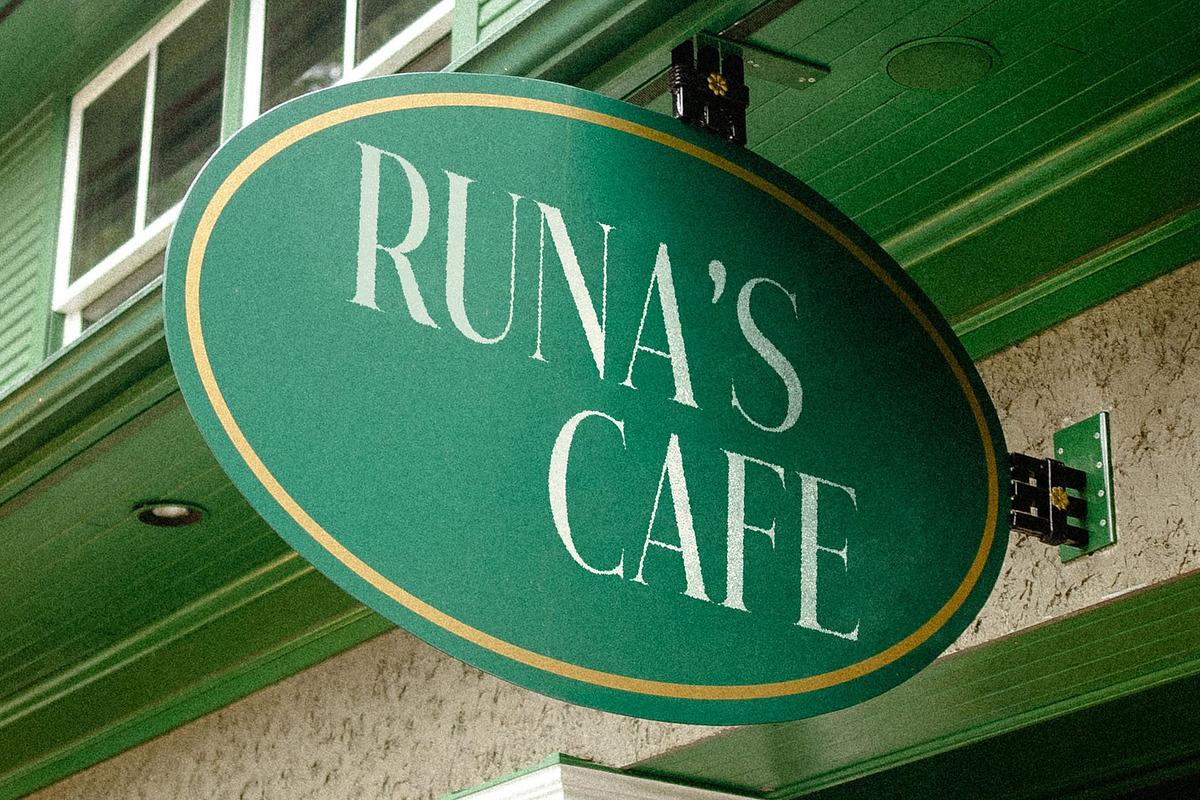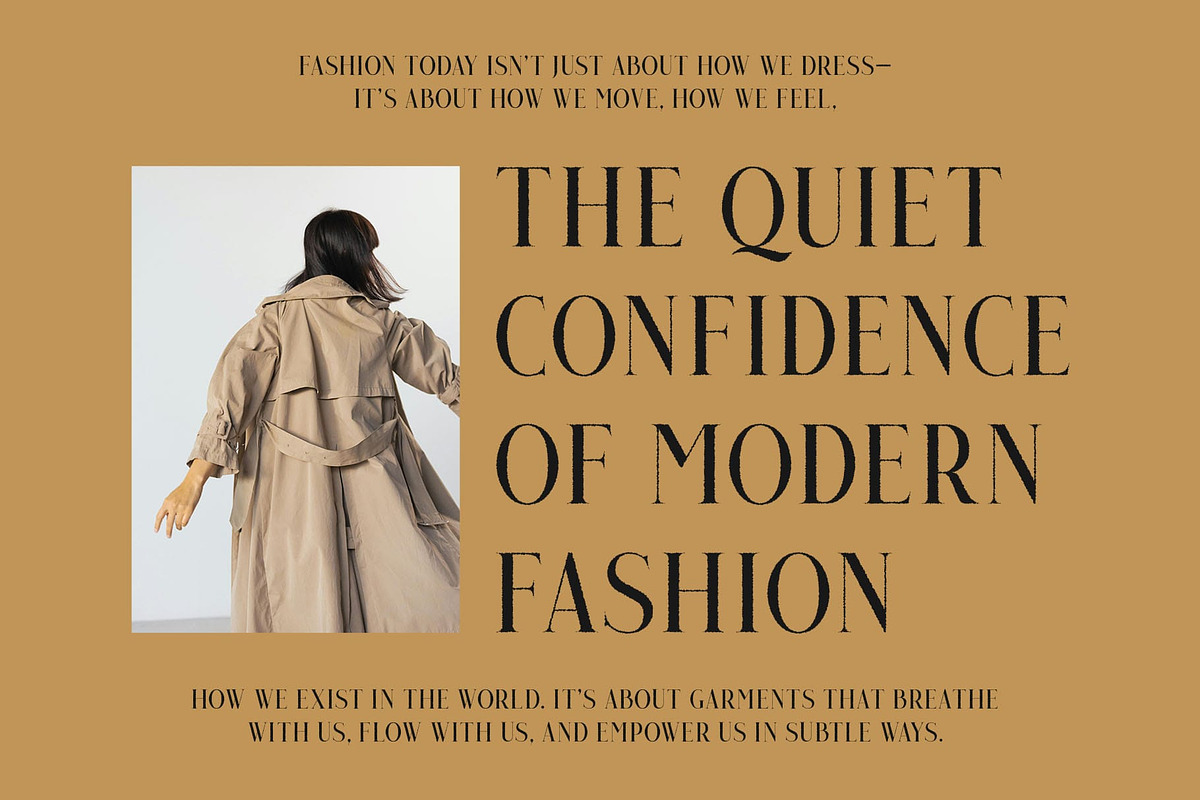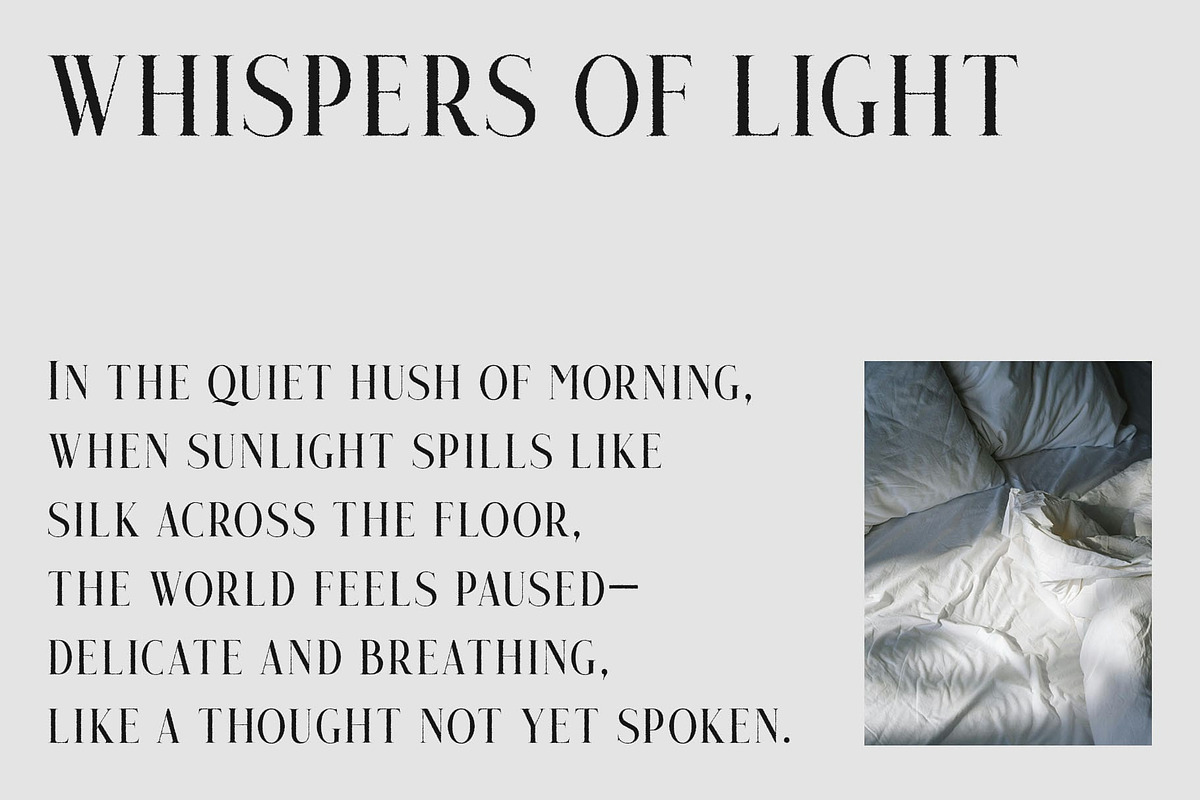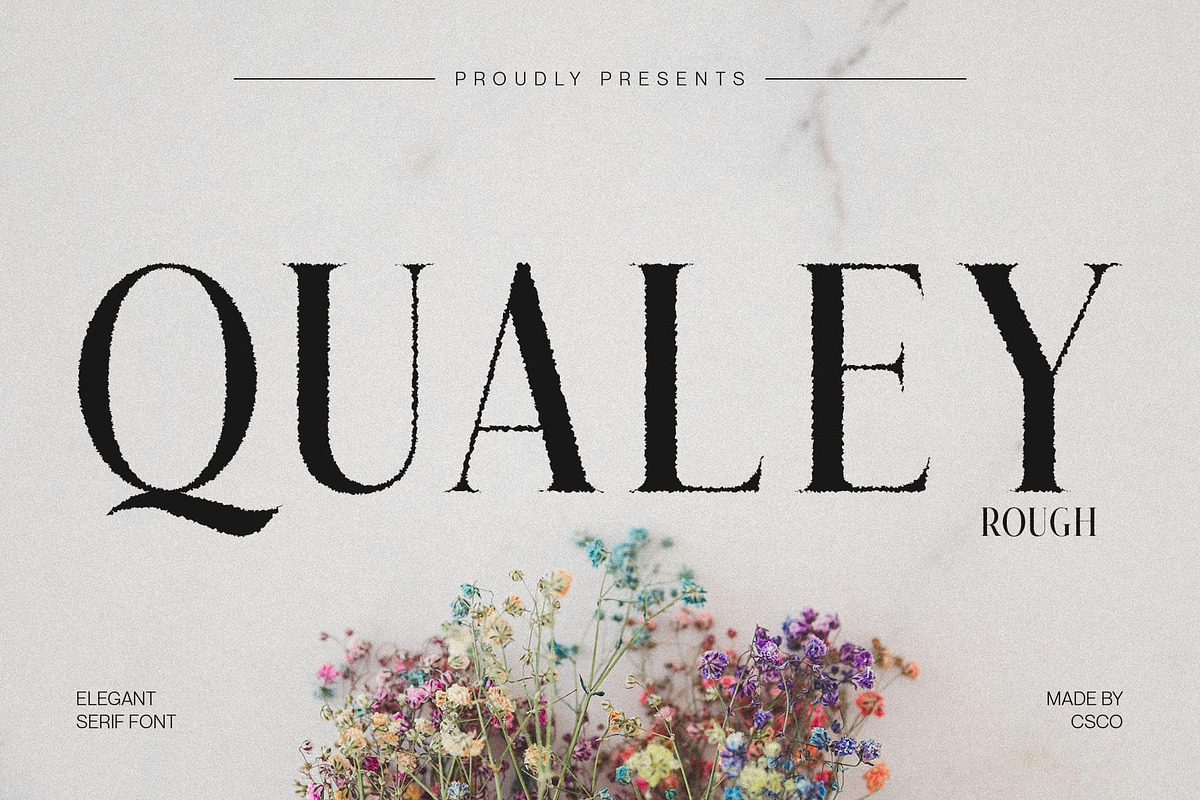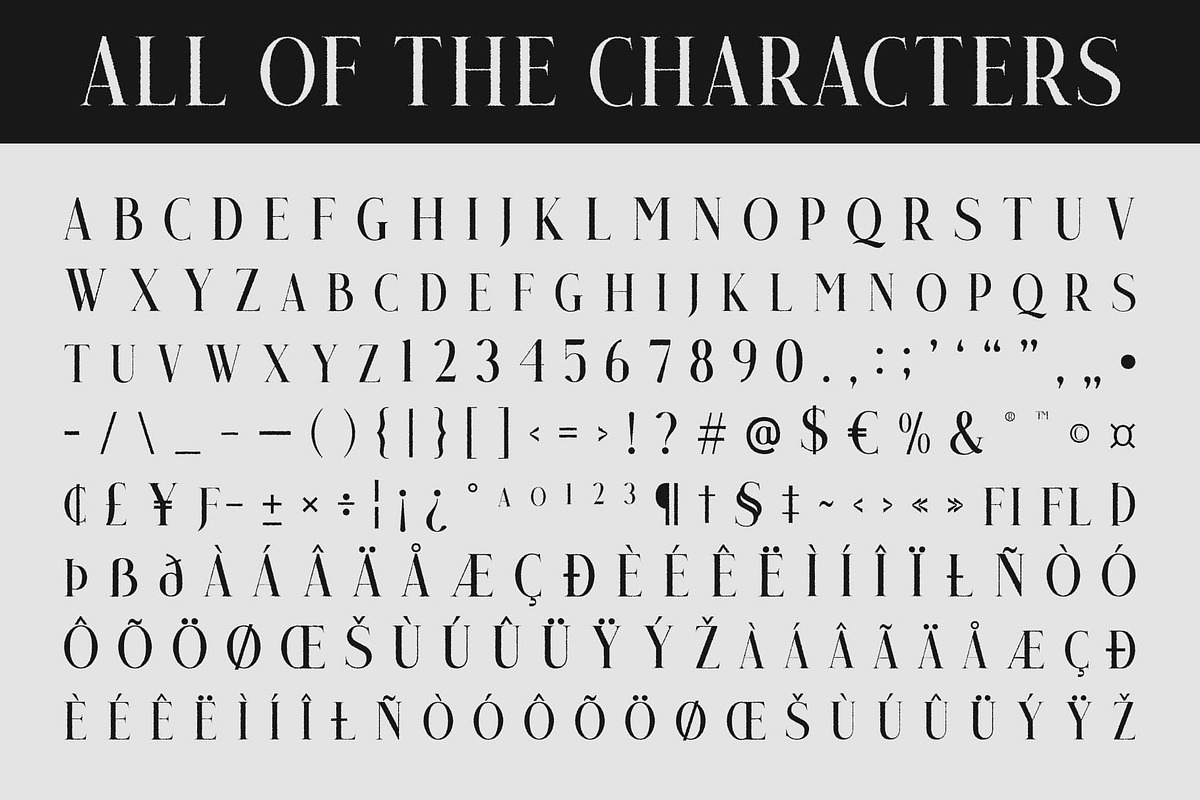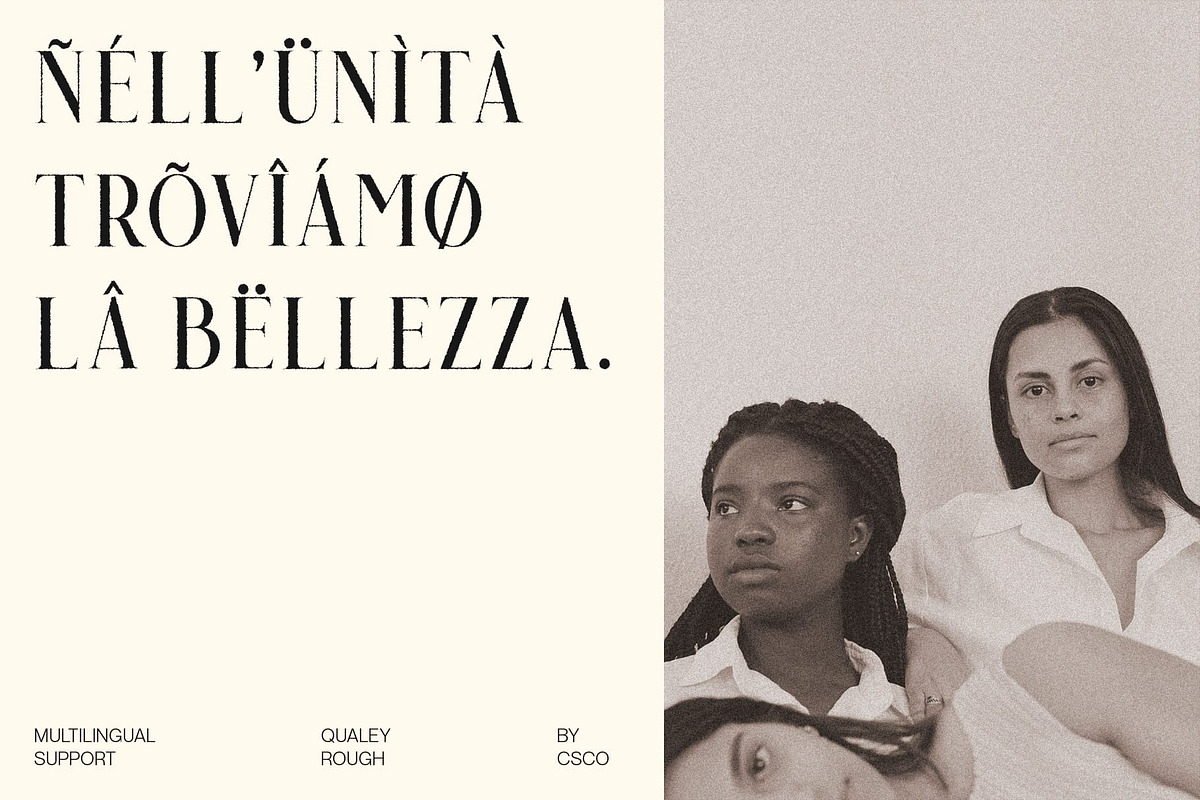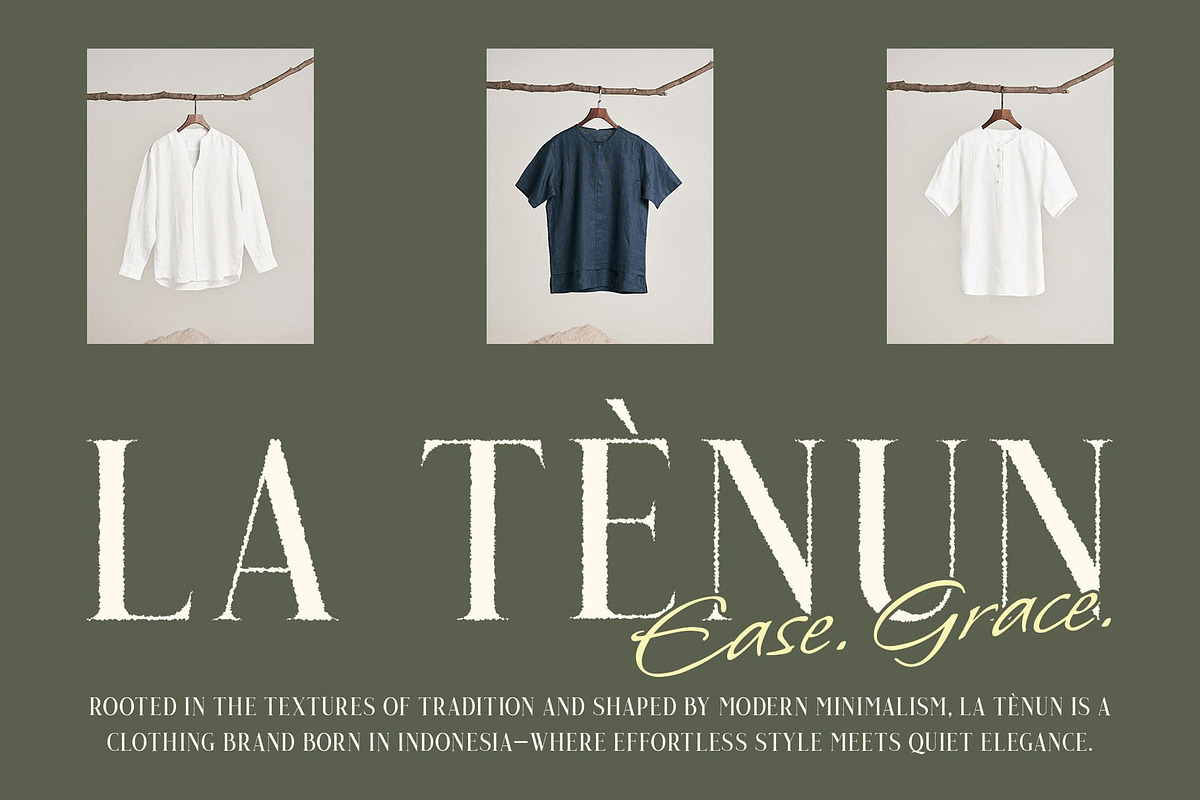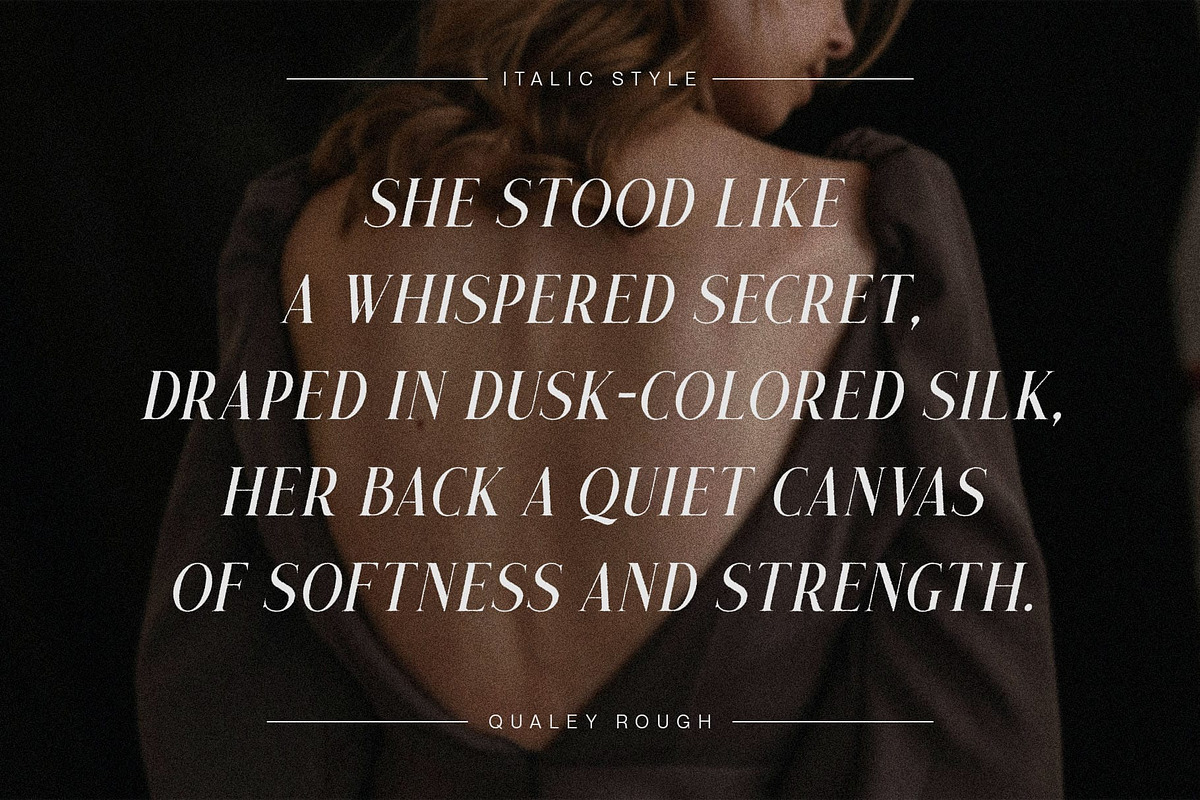
Qualey Rough
Qualey Rough – A Modern Serif Font with Organic Texture and Elegant Character
Refined Elegance Meets Handcrafted Texture Qualey Rough is a modern serif font that skillfully combines classic sophistication with a distinct rough texture, creating a typeface that feels both polished and organic. Its slender, high-contrast letterforms and sharp yet graceful serifs evoke a timeless sense of style.
Perfectly Imperfect for Creative Sophistication This font is designed to embody the best of both worlds—clean, minimalist shapes that offer clarity and elegance, enriched by intentional imperfections that make each letter feel alive and expressive. The rough effect isn’t just visual; it tells a story of craft, creativity, and a love for detail.
Versatile and Expressive for Premium Design Qualey Rough is ideal for luxury branding, editorial layouts, artistic packaging, wedding invitations, fashion lookbooks, and any project that calls for a stylish, elevated, and tactile typographic tone. Its visual texture gives your design a human touch, while the classic serif structure maintains a sense of reliability and finesse.
Where Elegance Feels Handcrafted From logos and headlines to elegant quotes or promotional graphics, this font delivers a sophisticated yet approachable aesthetic. It’s especially suited for creatives and brands that want to appear refined, modern, and full of personality—adding a sense of authenticity that digital perfection often lacks.
- Qualey Rough Regular
- Qualey Rough Italic